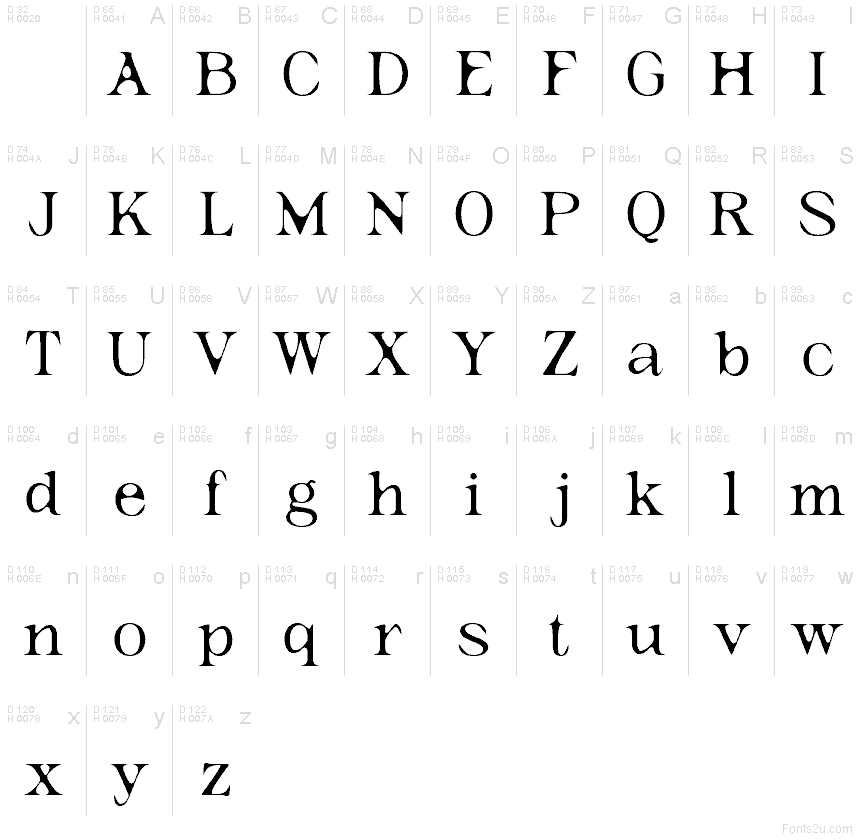
CSCrimsonDrawn-Regular Demo
CS Crimson Drawn by Craft Supply Co. is a free serif font that brings classic sophistication and elegance to any space it occupies. It projects professionalism, power, and even calmness through its timeless style and uniform appearance. Traditional applications can benefit greatly from this font in both print material and digital platforms.
With a vast array of possible use cases, the text typeface is suitable for literature books, popular magazines, journals, and newspapers. Use it in universities on student/staff IDs or at libraries on member cards. Write formal letters with it or go digital for websites intended for hotels/resorts using CS Crimson Drawn font as well.